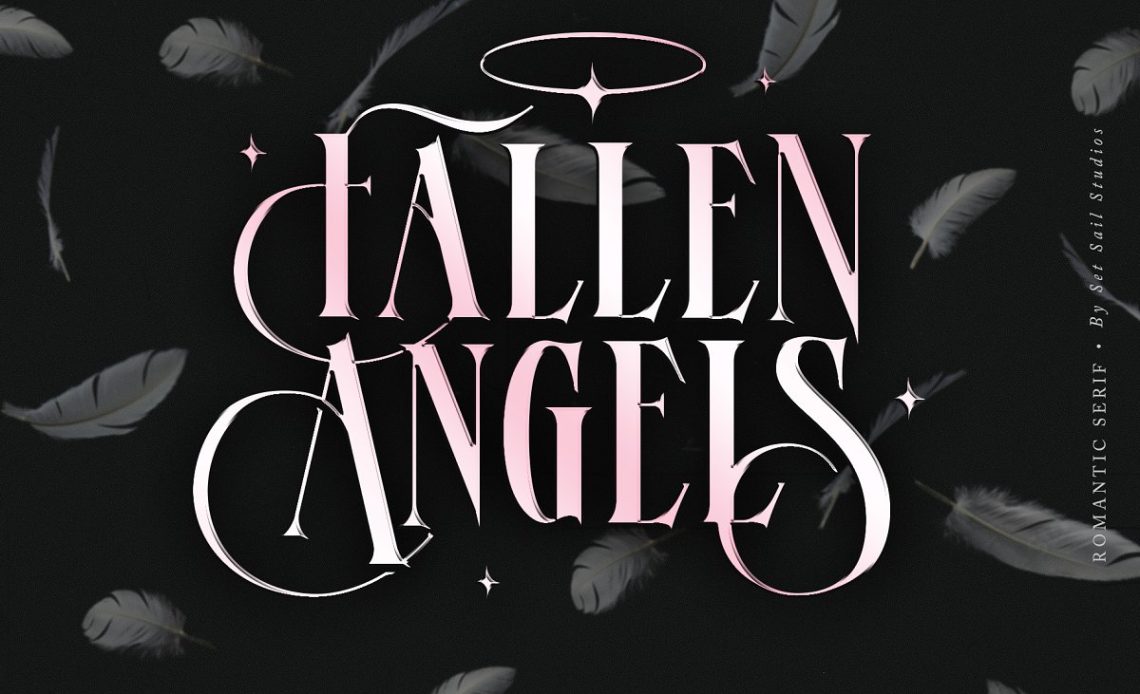
Introducing the Fallen Angels Serif Font - a modern take on a classic serif style created by the talented Sam Parrett. This font is a bold choice for designers who are looking for a touch of rebellious elegance and romantic curves.
With its stylized capitals and standard character set, Fallen Angels Serif Font is perfect for a wide range of design projects. Whether you are creating a logo, product packaging, album artwork, quotes, posters, or apparel, this font will elevate your designs and make them stand out.
But that's not all! Fallen Angels Serif Font also comes with extra features to help you customize your designs even further. Access alternate characters for E, F, r, and k by switching on 'Stylistic Alternates' or via a Glyphs panel. The font also includes six icons (3 halos and 3 stars) that can be accessed via a Glyphs panel.